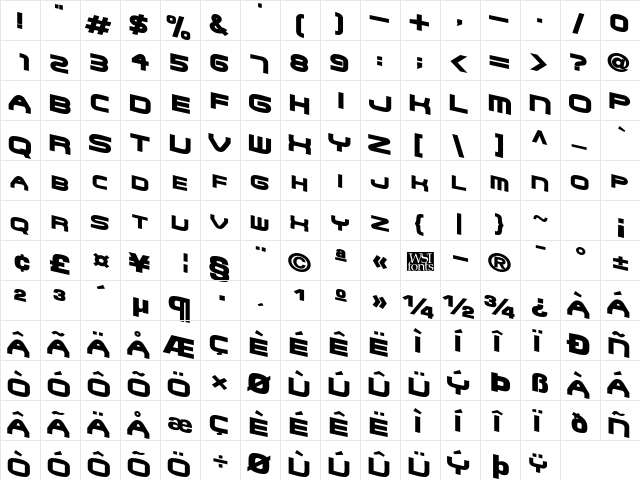
GarthWacky Bold
Design Context for GarthWacky Typeface
GarthWacky is a composed and adaptable typeface that performs quietly and consistently across a wide range of design contexts. Its bold stroke weight gives it real presence on the page.